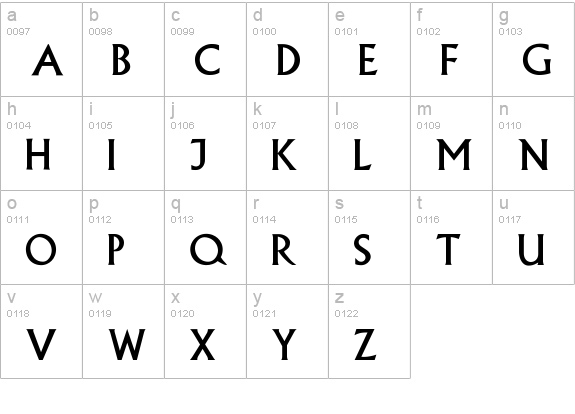
Berette Font Details
Berette font is a stunning and elegant typeface that exudes sophistication and charm. With its sleek lines and modern yet timeless design, Berette is perfect for a wide range of design projects, from branding to editorial work. The font features a unique blend of classic and contemporary elements, making it versatile and eye-catching. What sets Berette font apart is not only its beauty but also the fact that it is available for free download at FontsMarket.com. This means that you can easily access this exquisite font and use it in your projects without any cost. Whether you are a designer looking to elevate your creations or a writer aiming to add a touch of elegance to your text, Berette font is the perfect choice. Download Berette font today from FontsMarket.com and experience the beauty and versatility of this stunning typeface. Let Berette elevate your designs and make a lasting impression on your audience.